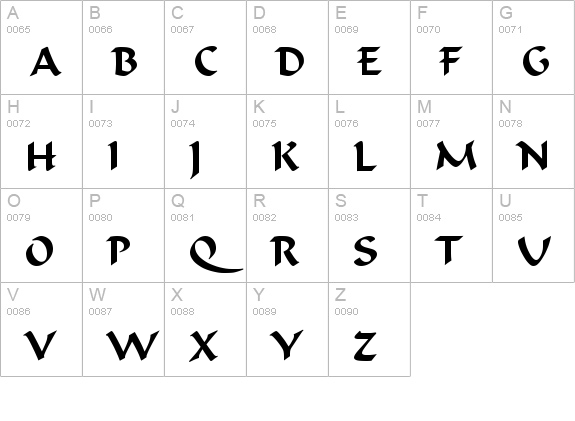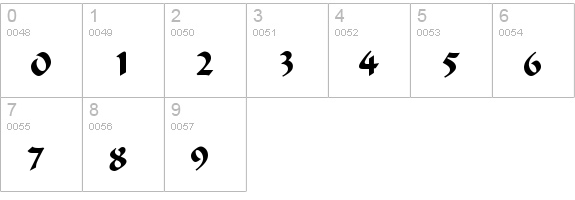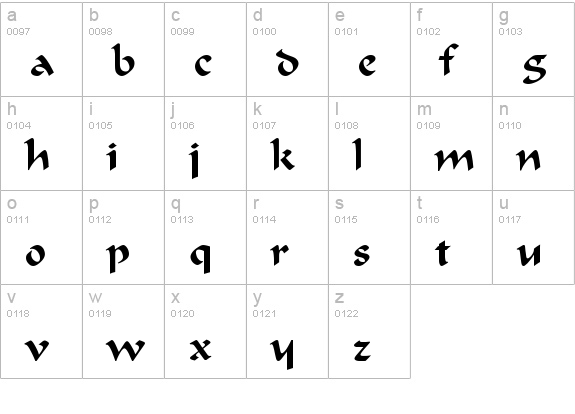
Calligraphic Regular is the standard, neutral variant in the Calligraphic typeface family \xE2\x80\x94 well suited to general body text, paragraphs, and standard typographic work.
The Calligraphic Regular font is a stunning display of elegance and sophistication, perfect for adding a touch of refined beauty to any project. With its graceful strokes and intricate details, this font exudes a sense of timeless charm and artistic flair. Whether used for invitations, branding, or decorative purposes, Calligraphic Regular brings a sense of luxury and sophistication to any design. Best of all, Calligraphic Regular is available for free download at FontsMarket.com. This means that you can easily access this exquisite font to elevate your projects without any cost. Don't miss out on the opportunity to enhance your designs with the beauty and grace of Calligraphic Regular – download it today and let your creativity soar!